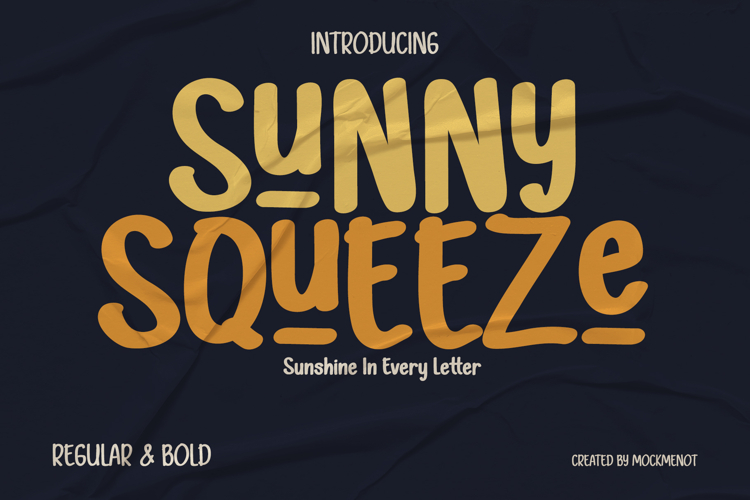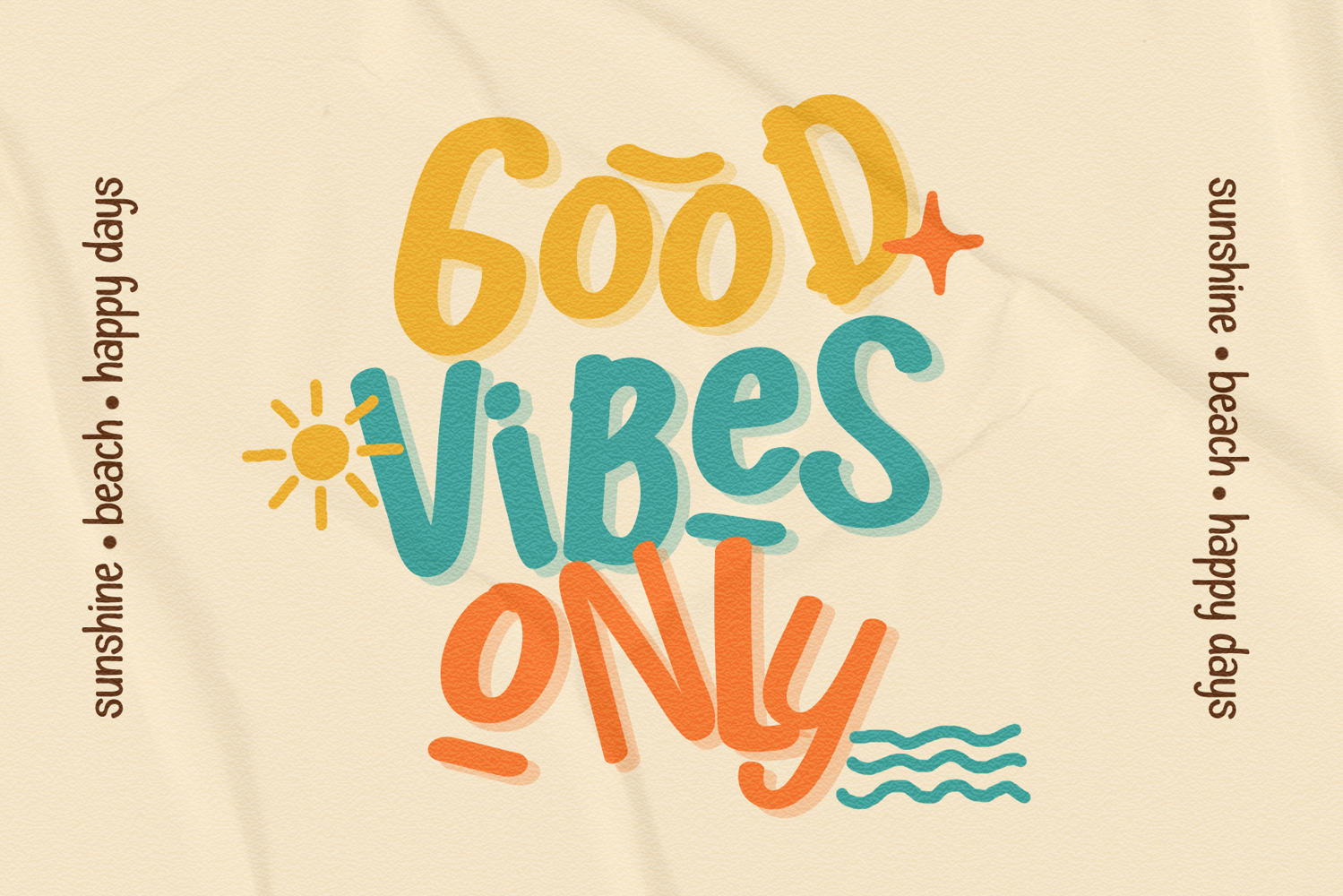
Meet Sunny Squeeze — a playful retro display font inspired by warm summer days, vintage snack packaging, and cheerful handmade lettering. With its chunky rounded shapes and nostalgic personality, this font is perfect for branding, packaging, posters, social media, kids products, café menus, stickers, and fun creative projects.
Sunny Squeeze comes with playful ligatures, alternates, numerals, punctuation, and multilingual support to help you create joyful and eye-catching designs with ease.